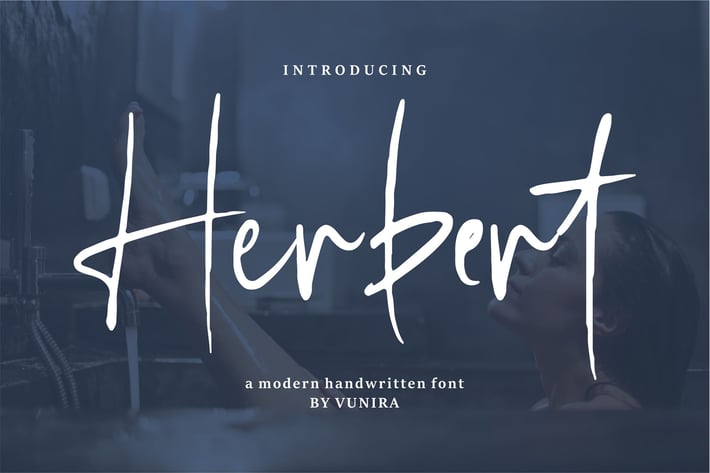
Herbert | A Modern Handwritten Font
Herbert | A Modern Handwritten Font with a calligraphy style, So beautiful on invitation like greeting cards, branding materials, business cards, quotes, posters, and more!